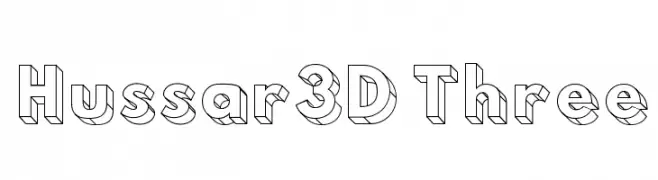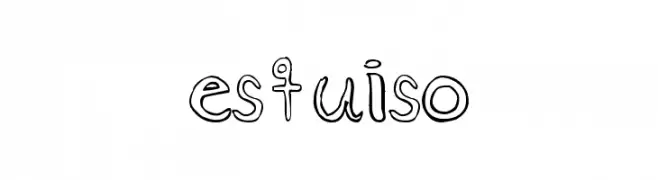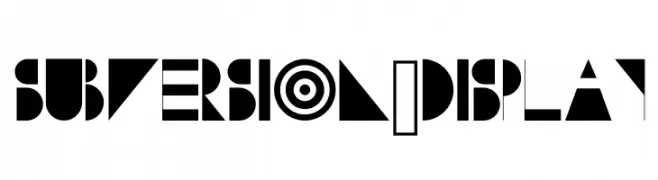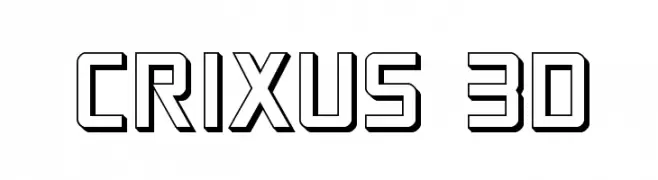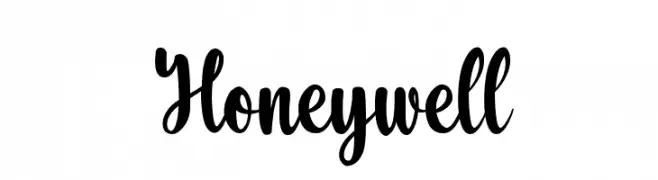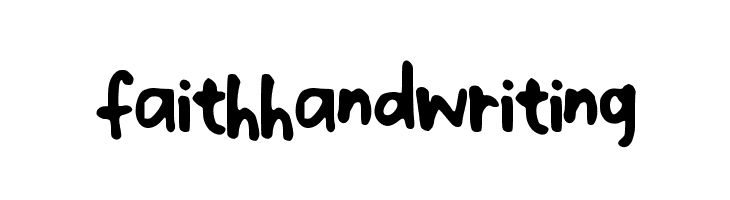
A playful, hand-drawn font with a whimsical and informal style.
A bold, geometric display font with high contrast and abstract shapes.
A bold, distressed font with a grunge aesthetic and textured edges.
A bold, 3D geometric font with a modern and futuristic style.
A whimsical and decorative font with intricate flourishes and curves.
A bold and expressive script font with flowing letterforms.
A casual, handwritten-style font with fluid, slightly slanted characters.
A bold, decorative font with vintage and gothic elements.